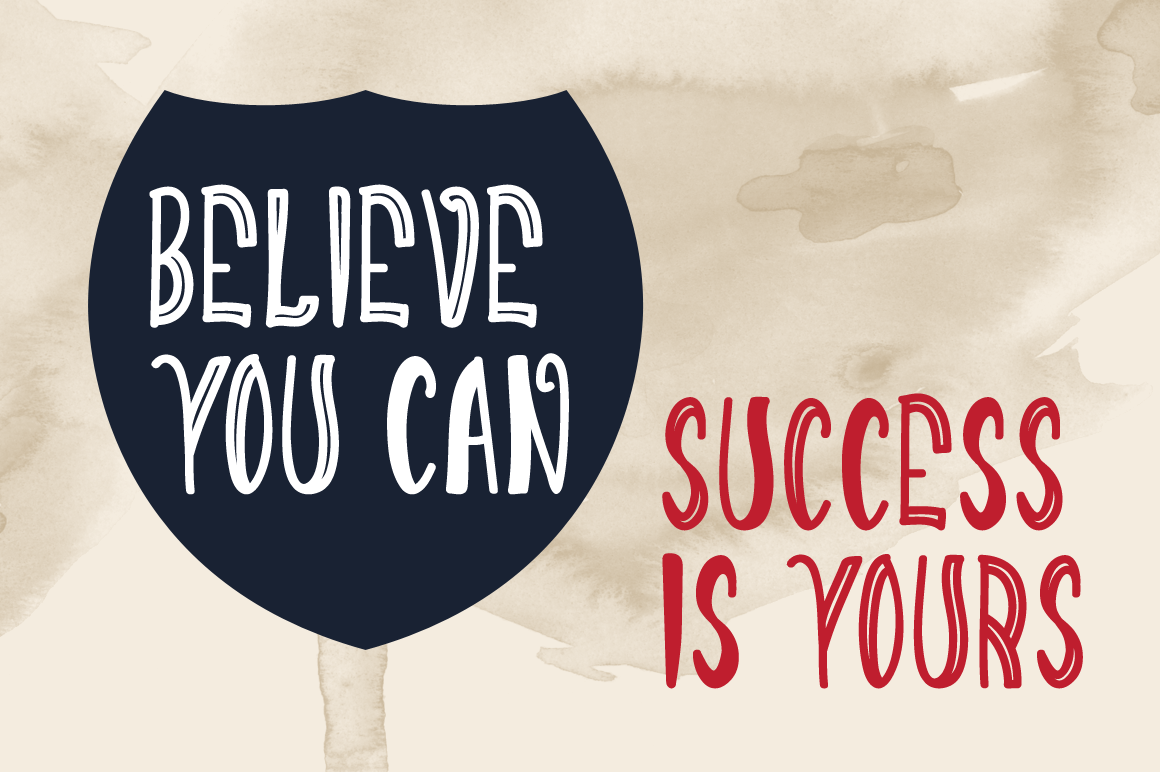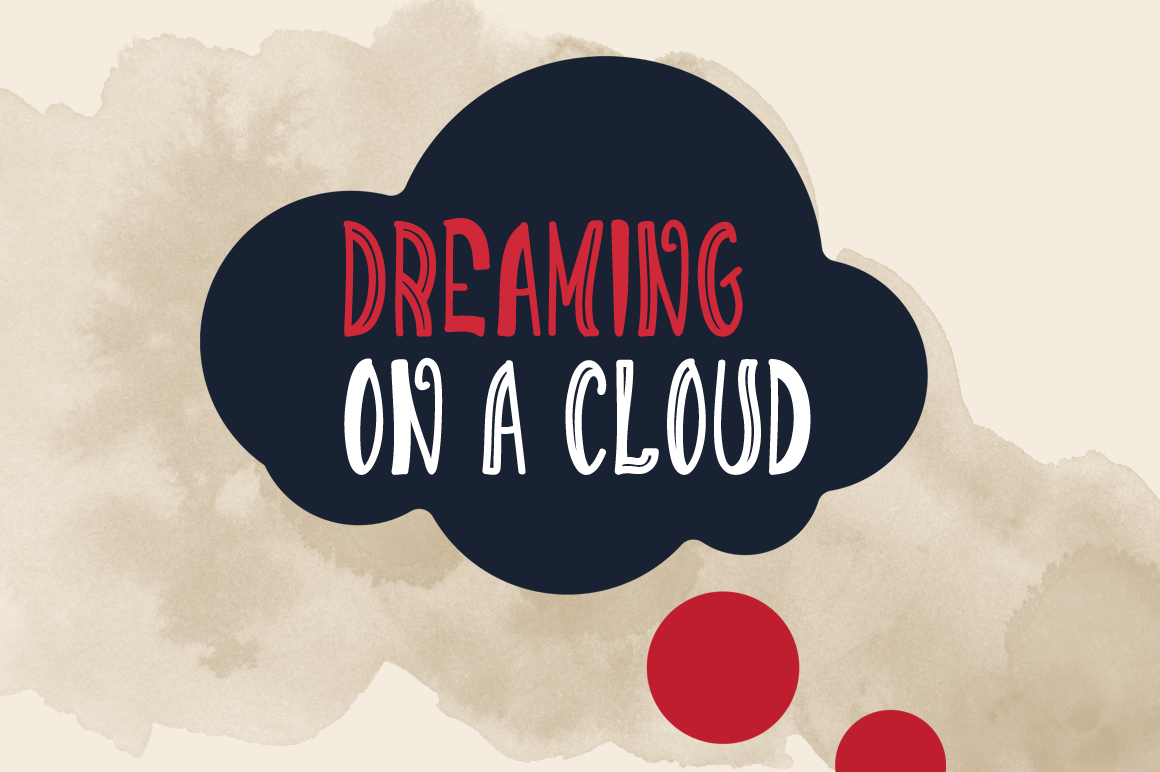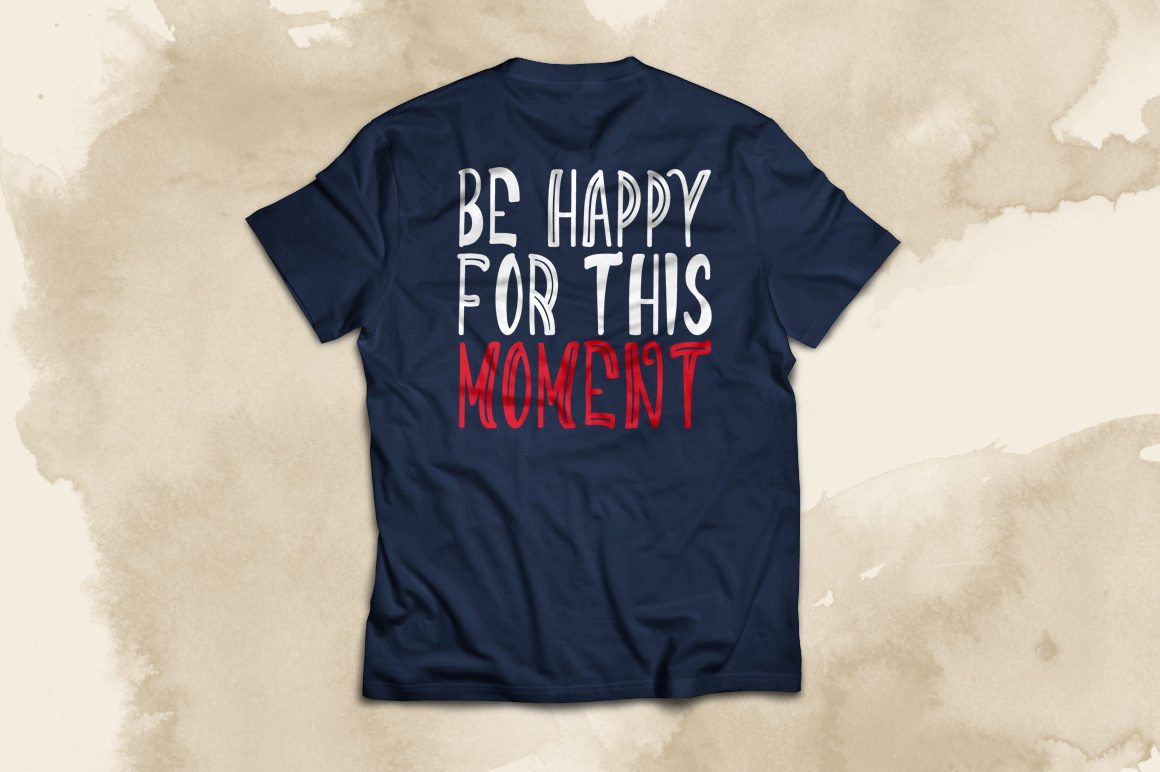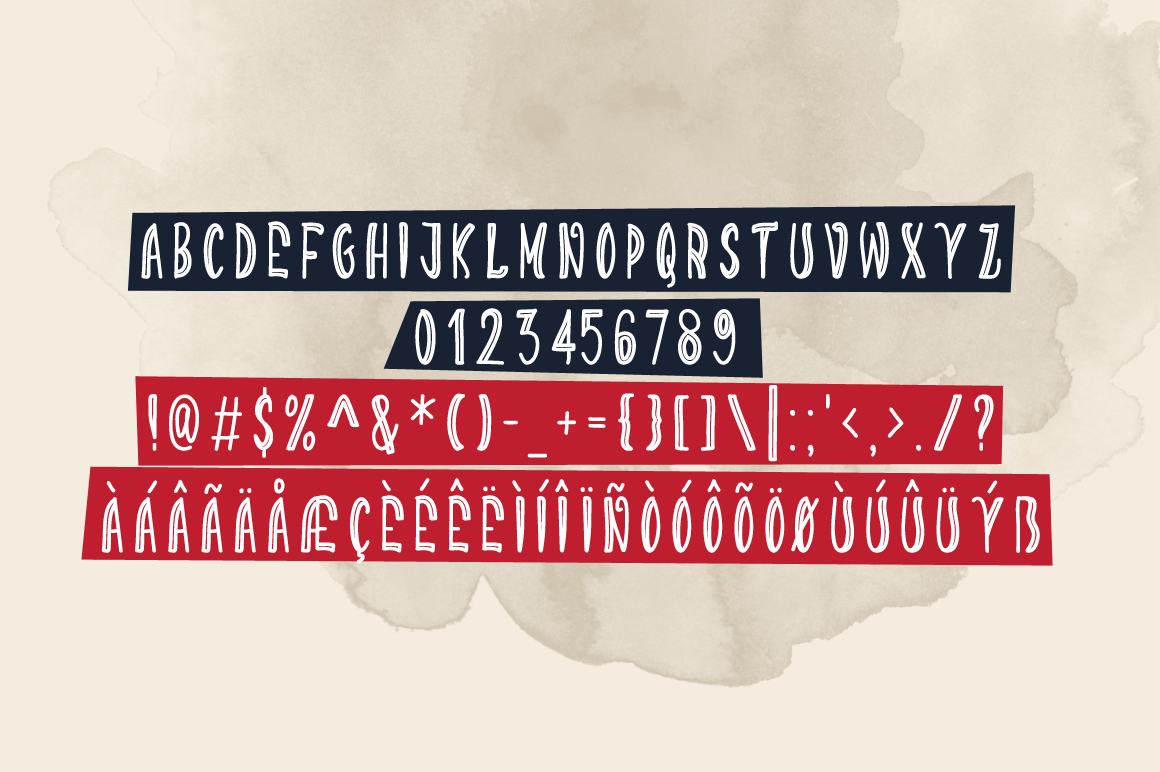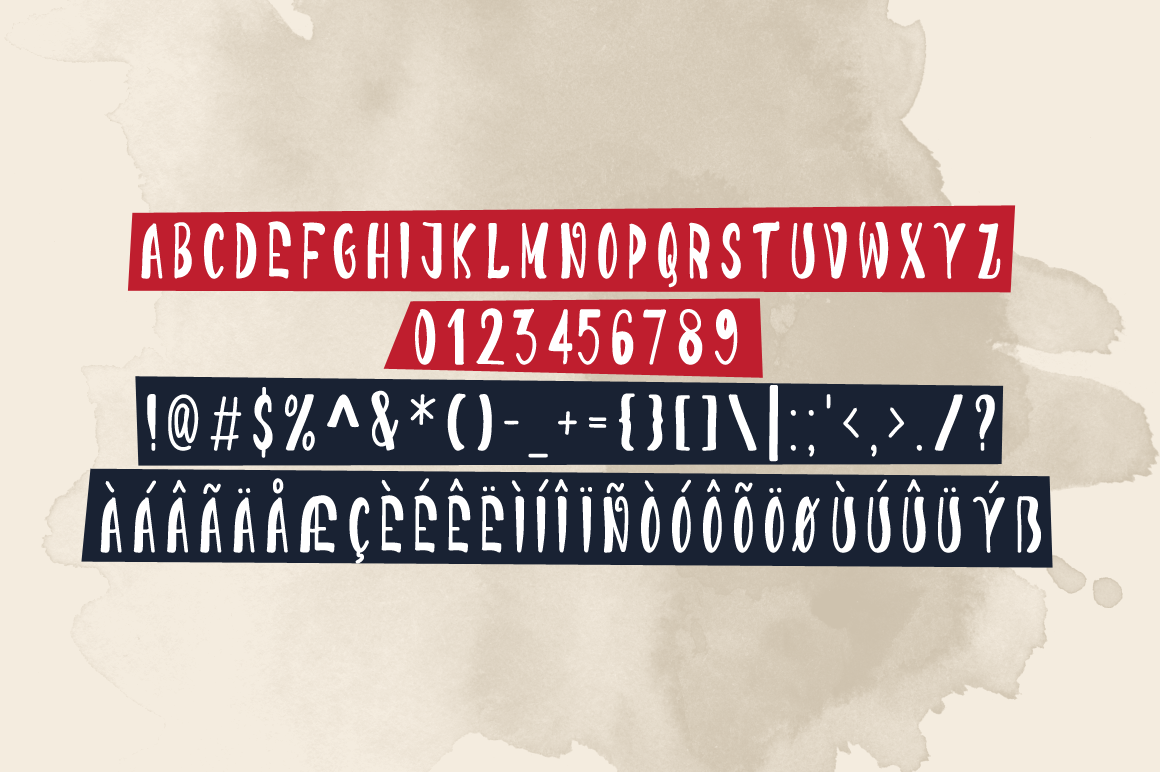
Introducing Darkness Funking Font: The Ultimate Duo for Creative Projects
Are you tired of using the same old fonts for your design projects? Look no further! We’re excited to introduce Darkness Funking Font, a brand new, fun font that’s sure to add a touch of personality to your creations. This font duo is designed to look impeccable when paired, and works well when used individually, making it perfect for a wide range of projects.
What Makes Darkness Funking Font Special?
Darkness Funking Font is a handwritten font with a soft appeal that will add a touch of warmth to your designs. Despite its playful look, the font is clean and smooth, making it perfect for creating sleek and modern content. The font duo consists of two complementary fonts that work well together, but can also be used individually to create a unique look.
Key Features of Darkness Funking Font
• Handwritten style: Darkness Funking Font has a beautiful, handwritten style that’s perfect for creating personal and engaging content.
• Soft appeal: The font has a soft, gentle look that will add a touch of warmth to your designs.
• Clean and smooth: Despite its playful look, the font is clean and smooth, making it perfect for creating sleek and modern content.
• Font duo: The font comes in two complementary styles that work well together, but can also be used individually.
• Versatile: Darkness Funking Font is perfect for a wide range of projects, from crafting and designing to writing and blogging.
Darkness Funking Font is perfect for designers and crafters who want to add a touch of personality to their projects. Whether you’re creating invitations, greeting cards, or social media graphics, this font duo is sure to make your designs stand out. The font is also great for crafting, scrapbooking, and other paper crafting projects.
Tips for Using Darkness Funking Font
Here are some tips for using Darkness Funking Font in your projects:
• Pair the fonts: Use both fonts together to create a beautiful, cohesive look.
• Experiment with colors: Try pairing the font with different colors to create a unique look.
• Add embellishments: Add embellishments, such as glitter or flowers, to give your designs a extra touch.
• Use it for titles and headings: Use Darkness Funking Font for titles and headings to add a touch of personality to your designs.
Why Choose Darkness Funking Font?
There are many reasons why you should choose Darkness Funking Font for your next project. Here are a few:
• Unique and creative: Darkness Funking Font is a unique and creative font that’s sure to make your designs stand out.
• Easy to read: Despite its playful look, the font is easy to read and perfect for creating content that’s both fun and functional.
• Versatile: The font is perfect for a wide range of projects, from crafting and designing to writing and blogging.
• High-quality: Darkness Funking Font is a high-quality font that’s designed to deliver exceptional results.
In conclusion, Darkness Funking Font is a brand new, fun font that’s perfect for designers and crafters who want to add a touch of personality to their projects. With its handwritten style, soft appeal, and clean and smooth look, this font duo is sure to make your designs stand out. Whether you’re creating invitations, greeting cards, or social media graphics, Darkness Funking Font is the perfect choice.